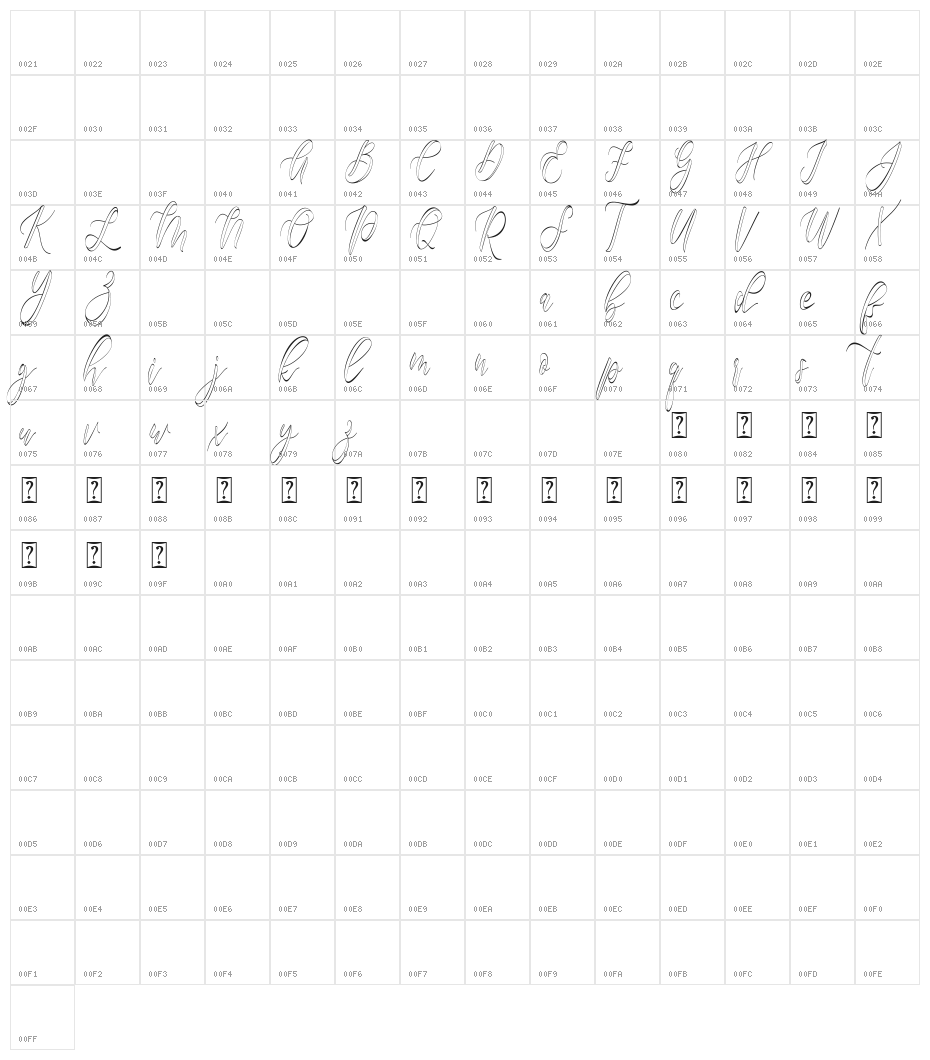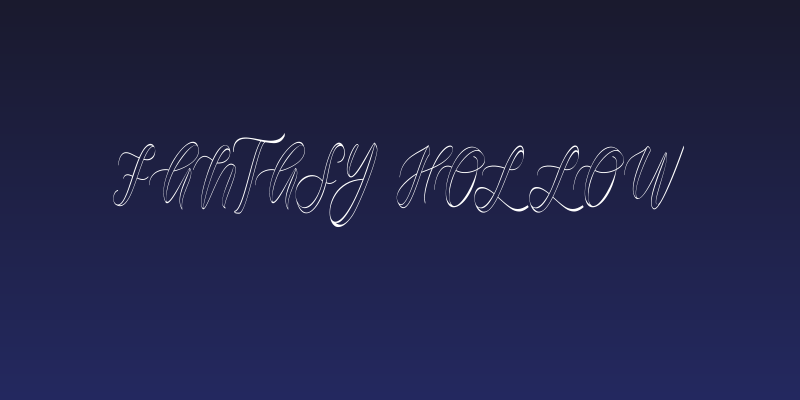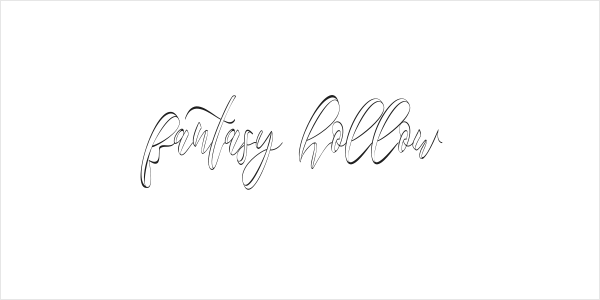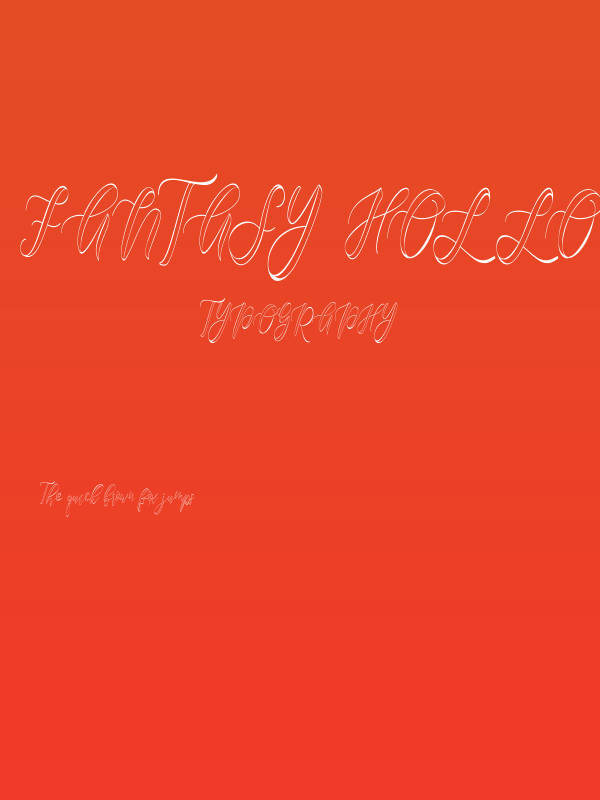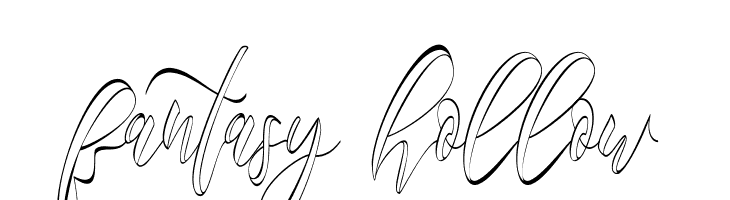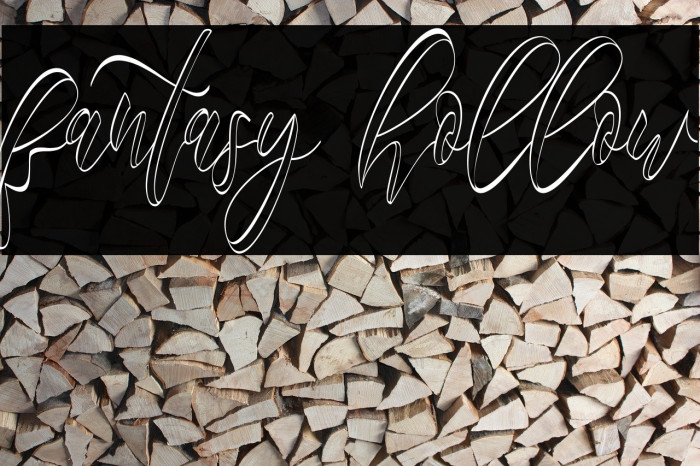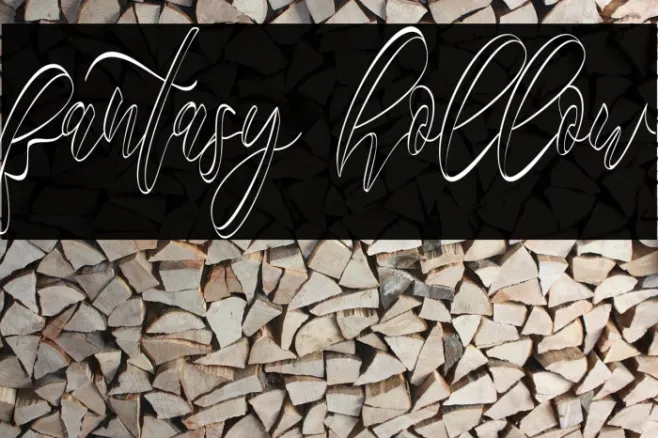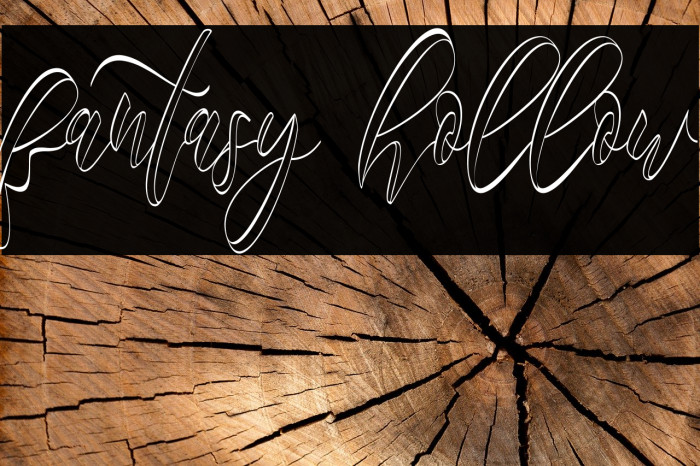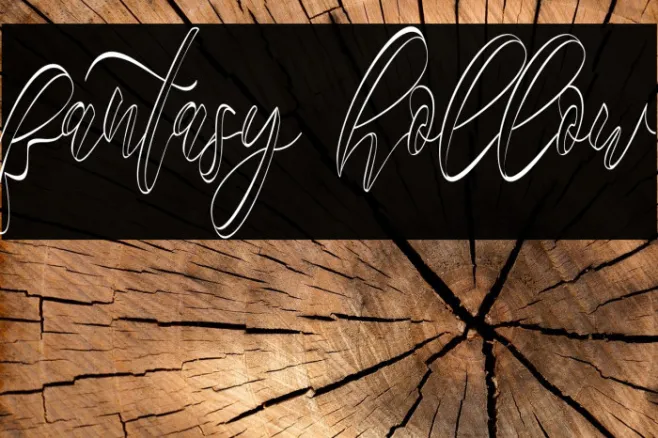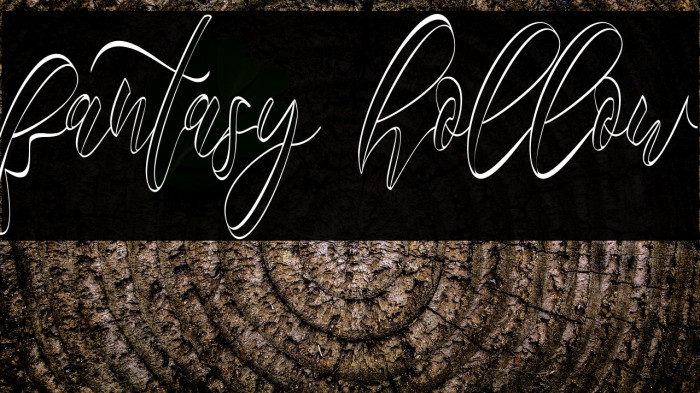
fantasy hollow Font
fantasy hollow Description
This elegant script font features a delicate, flowing design with hollow interiors, giving it a light and airy appearance. The characters are interconnected with smooth, sweeping curves that enhance its sophisticated and graceful style. The uppercase letters are slightly more ornate, with extended flourishes, while the lowercase letters maintain a consistent rhythm and balance. The numbers and special characters are designed to complement the overall aesthetic, maintaining the same fluidity and elegance. This font is perfect for adding a touch of refinement and charm to any design project.
| Use Case | Headlines, Invitations, Branding |
| Proposed Projects | Ideal for wedding invitations, elegant branding, greeting cards, and decorative headlines. |